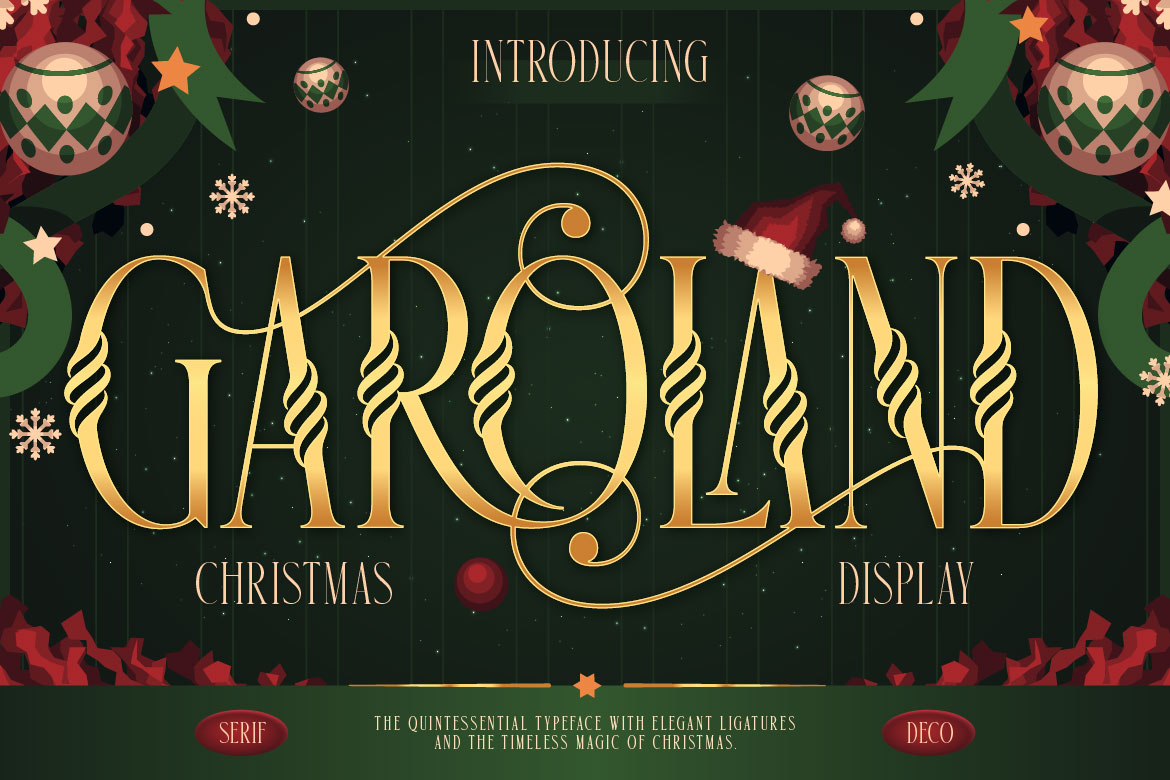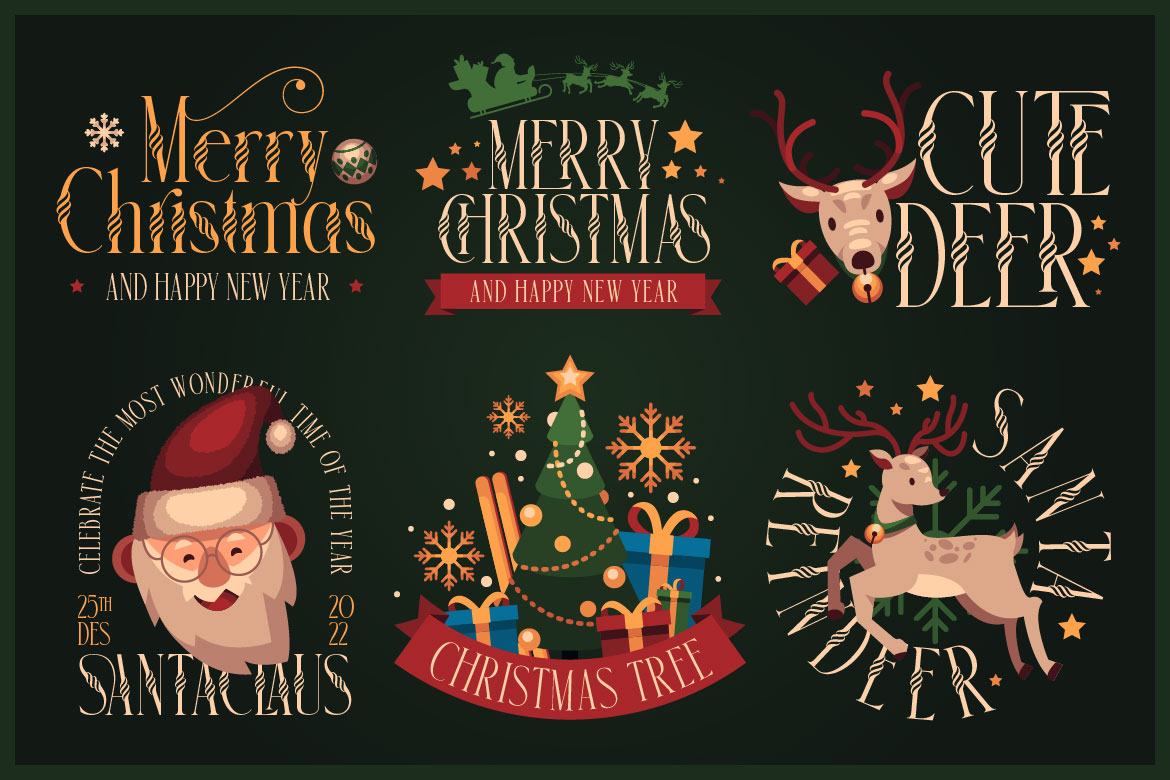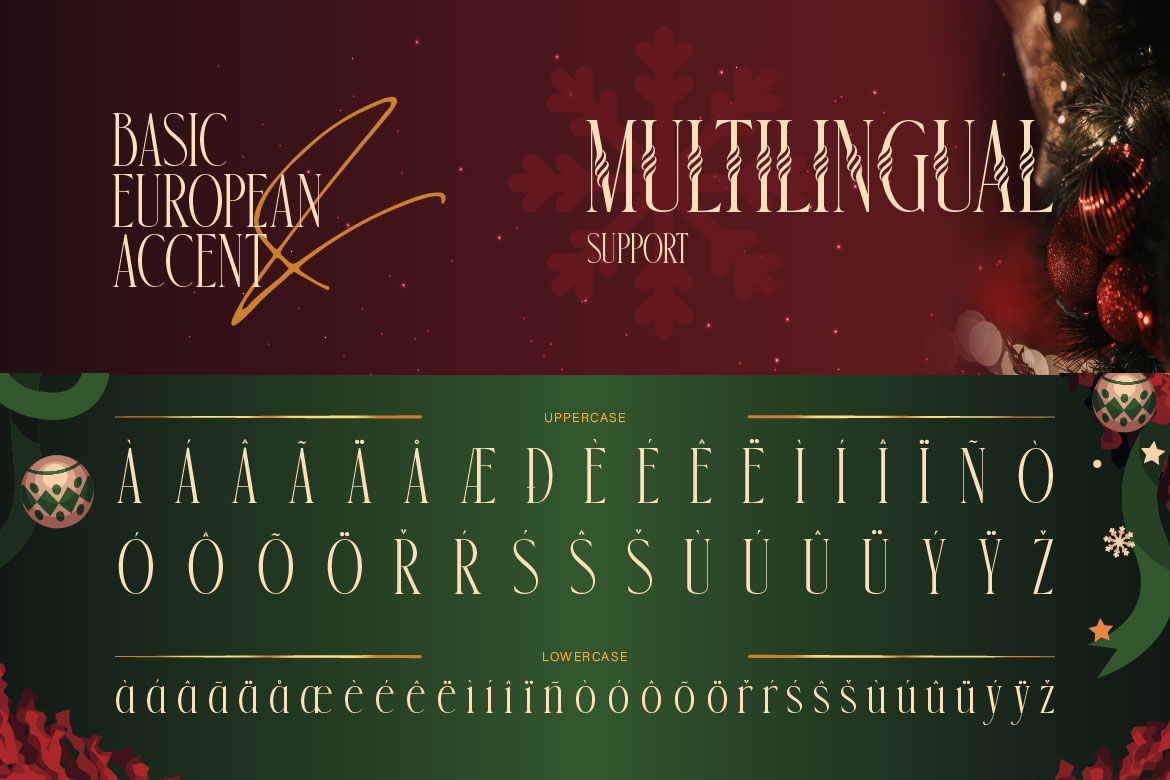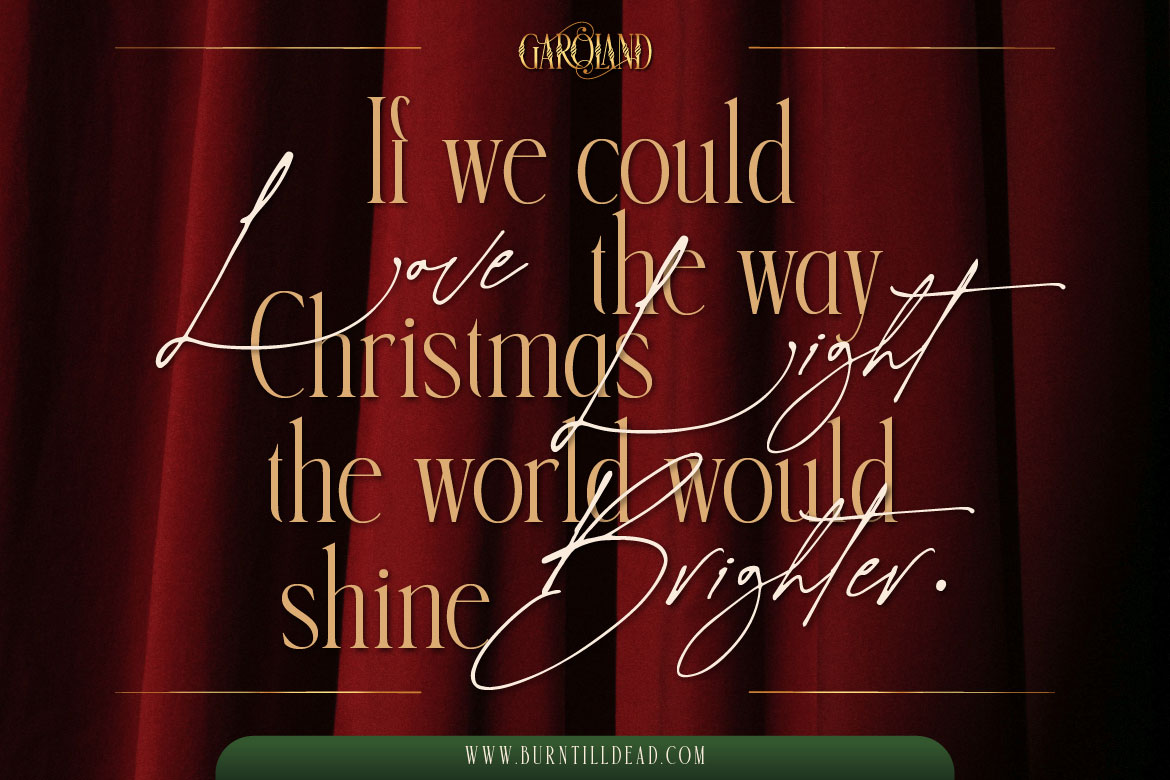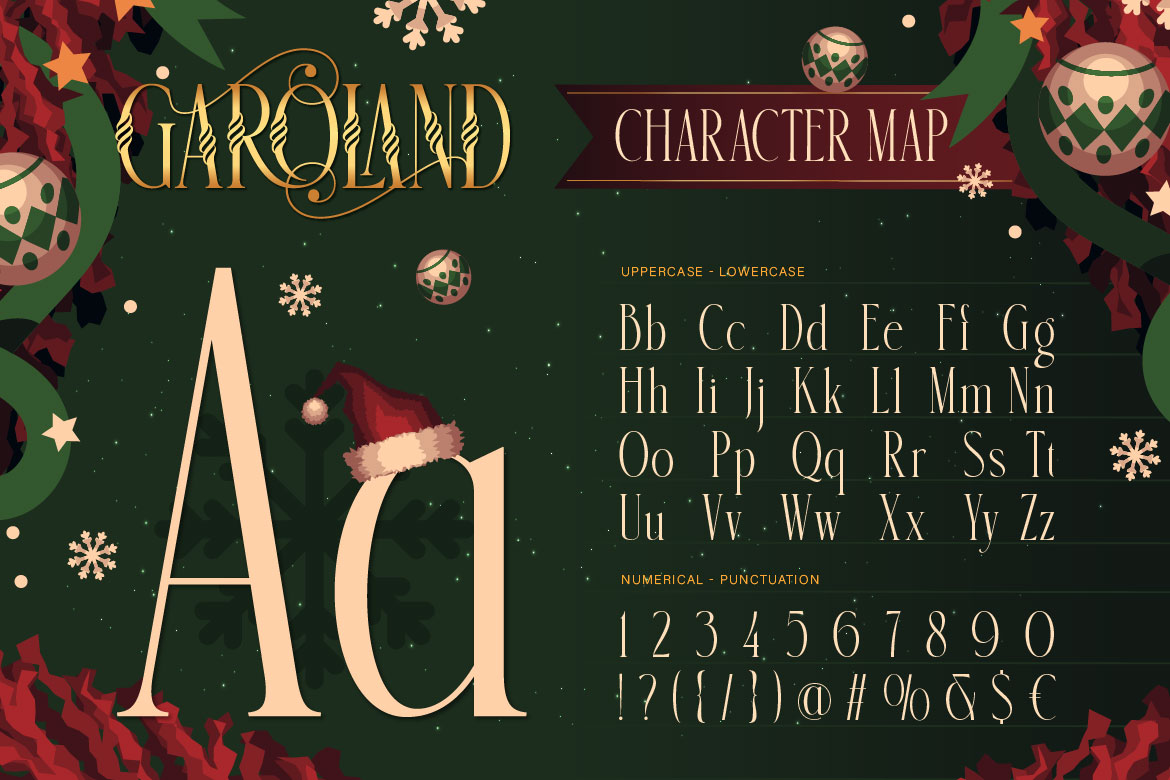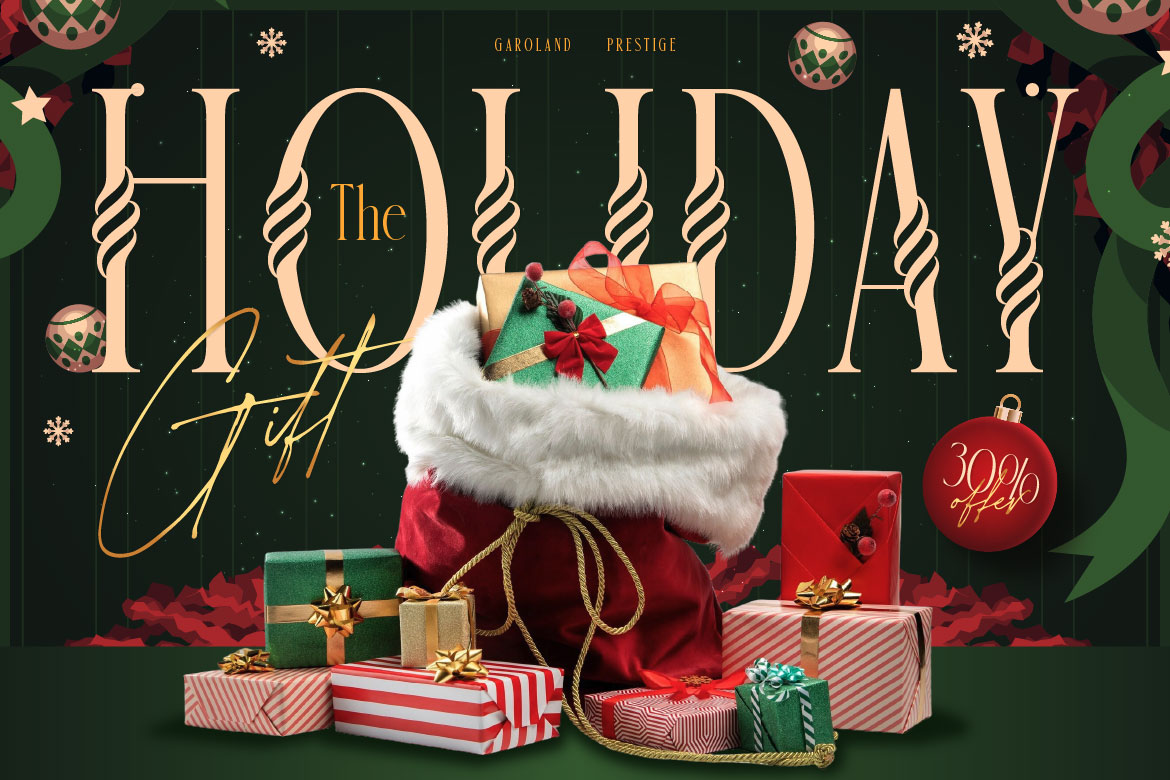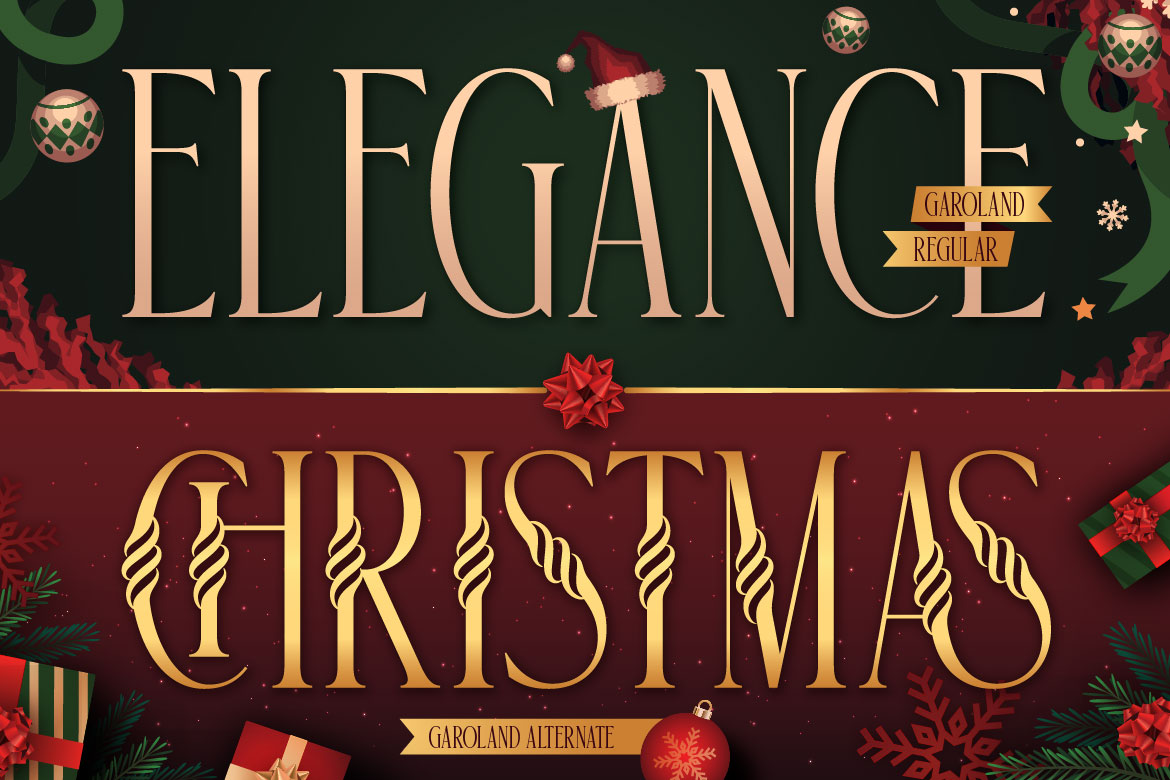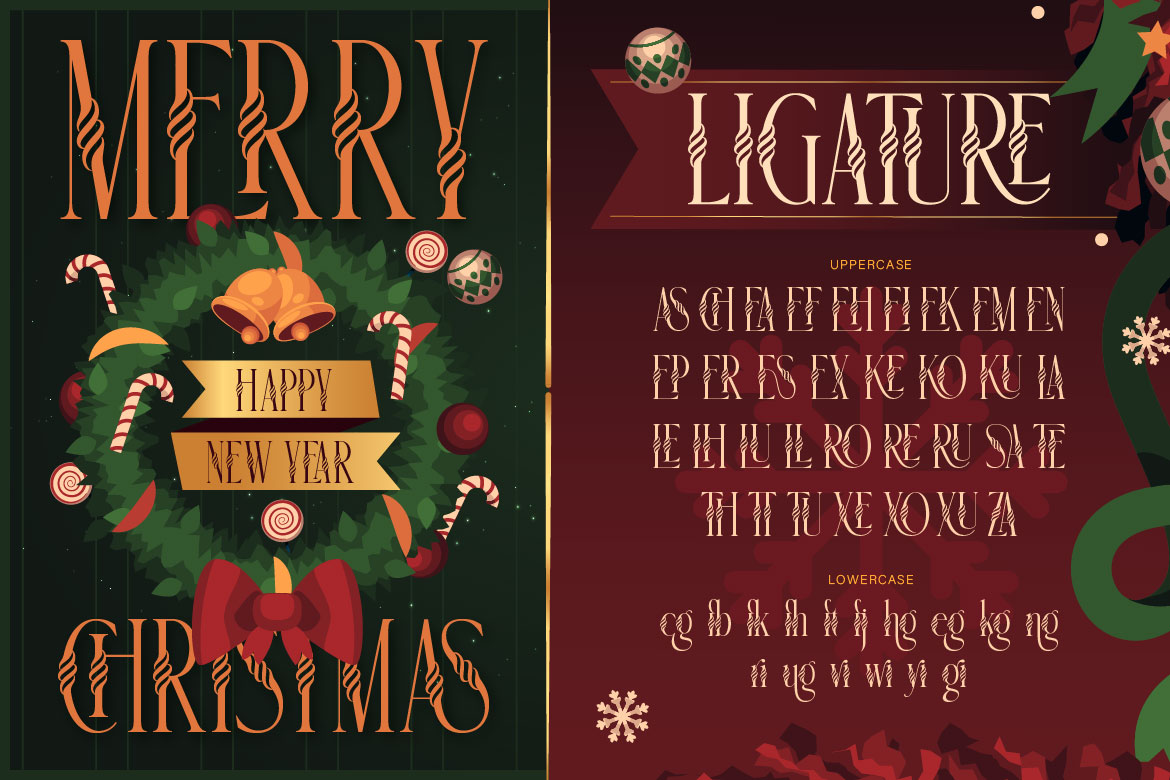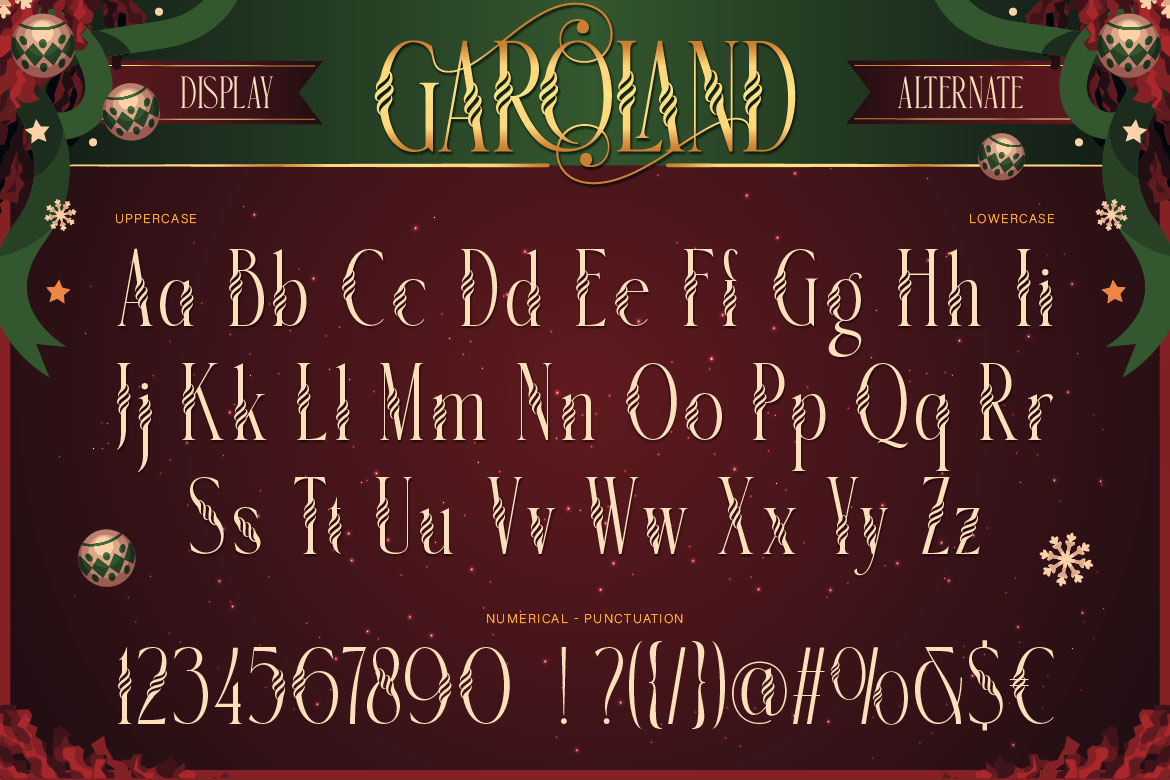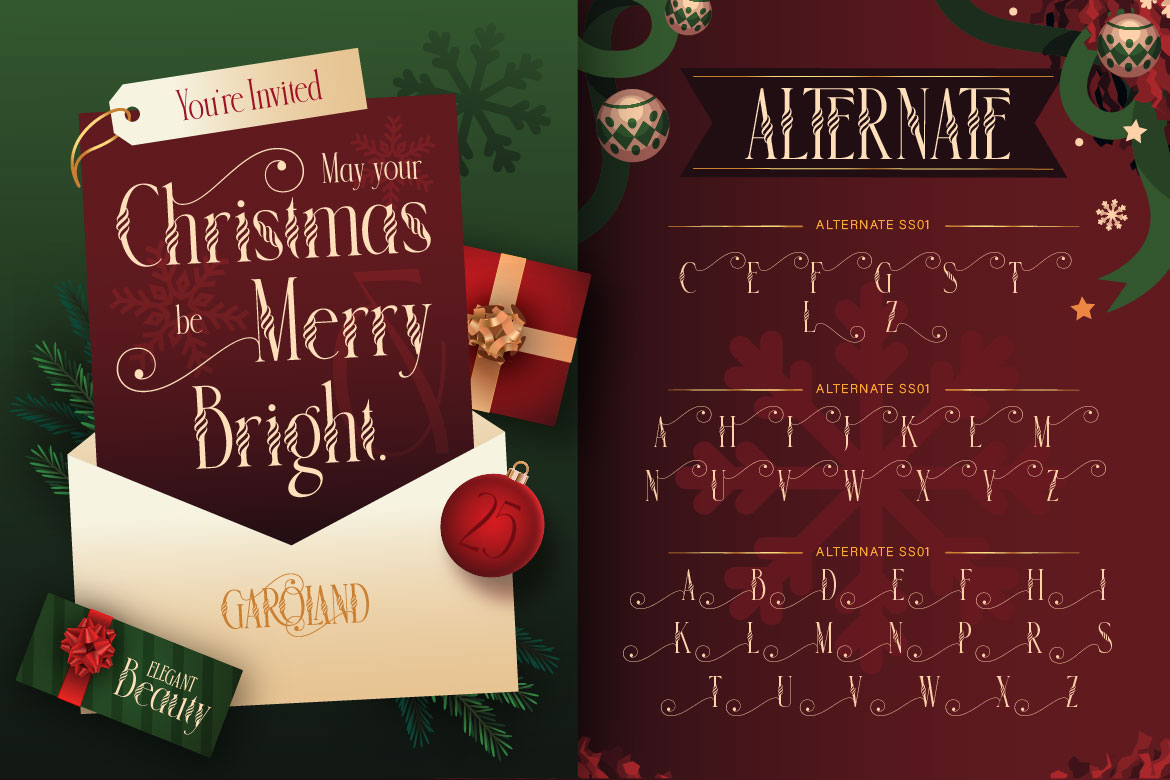
Garoland – Christmas Display Serif
Garoland is a tall, elegant display serif with an art deco feel and a festive twist. The slim, high-contrast letters look refined at large sizes, and the Alternate style adds twisted, rope-like details that make any holiday headline stand out.
Two styles in one font
• Regular: clean, condensed serif letters with sharp contrast. Great for elegant headlines and classic Christmas layouts.
• Alternate: the same graceful letter shapes with twisted ornamental details, for titles that need extra holiday character.
Garoland includes ligatures that connect letters in a decorative way, so your titles and wordmarks look custom-lettered without any extra drawing.
Design tip: Set most of your text in Regular and switch to Alternate for one key word, like “Christmas” or a name. The contrast between the two styles keeps the layout balanced and eye-catching.